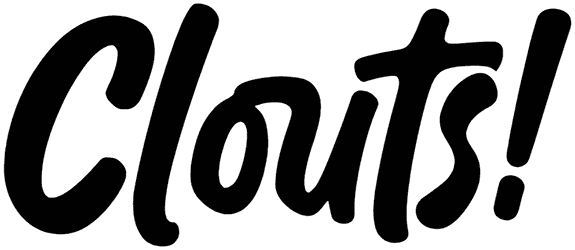
Clouts Font
Some typefaces are subtle; others make a statement. Clouts falls firmly in the latter category. With its bold, assertive letterforms and confident character, this font doesn’t quietly support a layout; it defines it. The sturdy structure and strong presence make it ideal for headlines, logos, posters, or any design where you want the typography to speak first. That doesn’t mean it sacrifices nuance; the shapes still carry personality and rhythm, helping keep your message clear and engaging even at a glance.
Whether you’re building bold branding, creating event posters, designing packaging headers, or crafting attention‑grabbing headlines for digital campaigns, this handwritten font helps your words resonate with authority and style. Sometimes the right font doesn’t just deliver a message; it amplifies it.